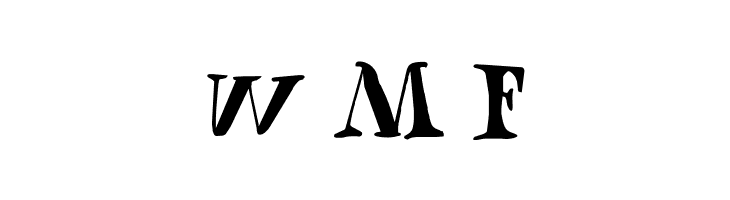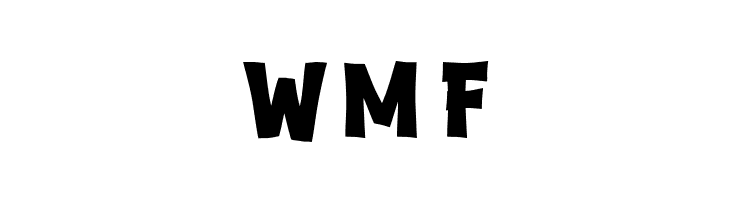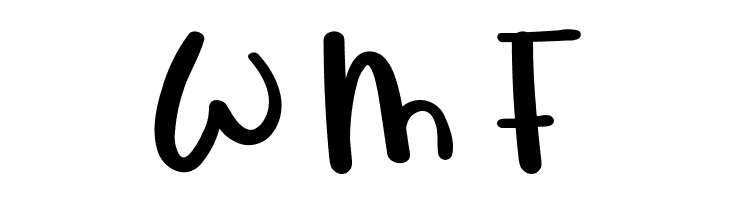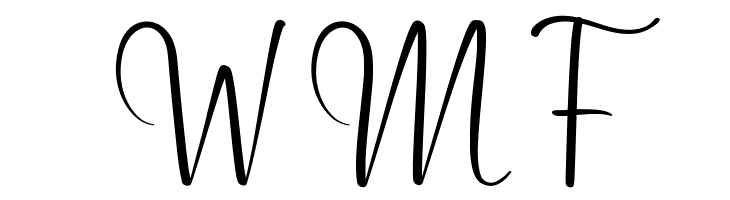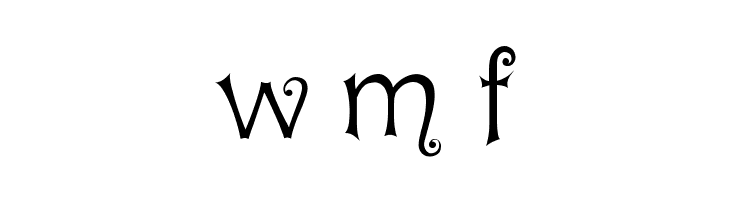
A playful and whimsical font with bold, hand-drawn strokes and decorative heart elements.
A playful, hand-drawn font with whimsical and expressive characters.
An artistic and edgy font with elongated serifs and dynamic curves.
A dynamic, cursive script font with fluid, interconnected strokes.
A bold, playful font with heavy strokes and a whimsical design.
An elegant script font with flowing, cursive style and decorative flourishes.
An elegant, flowing script font with graceful curves and continuous strokes.
A bold, flame-inspired decorative font with intense, dynamic shapes.
Handwritten cursive script font.
A playful, handwritten font with smooth, rounded edges and a casual vibe.
A playful and modern handwritten font with fluid, dynamic strokes.
A playful handwritten font with dynamic strokes and a lively style.
A lively, flowing script font with elegant, cursive letterforms.
A playful, casual handwritten font with fluid, connected strokes.
A bold, brush-style italic font with dynamic strokes and a handwritten feel.
A bold, brush-style italic font with dynamic and expressive strokes.
A bold, expressive handwritten font with dynamic, brush-like strokes.
A bold, brush-style font with a dynamic and artistic flair.
A modern, cursive font with elegant, flowing lines and a handwritten feel.
A playful font with ice cream motifs integrated into bold, rounded characters.
An elegant, flowing script font with graceful, interconnected characters.
A bold, playful font with thick, rounded shapes and a whimsical style.
A playful, bubbly outline font with a retro vibe.
A playful, bold font with rounded, bubble-like characters.
Elegant handwritten script font.
A bold, expressive handwritten font with fluid strokes and a modern flair.
A whimsical and playful font with decorative, curly serifs and a hand-drawn appearance.
A playful, nautical-inspired monoline font with whimsical curves and consistent stroke width.
A playful and elegant handwritten script with flowing, interconnected strokes.
A cursive, elegant font with a handwritten style and bold, connected letters.